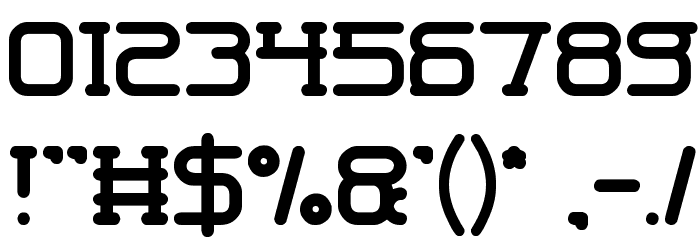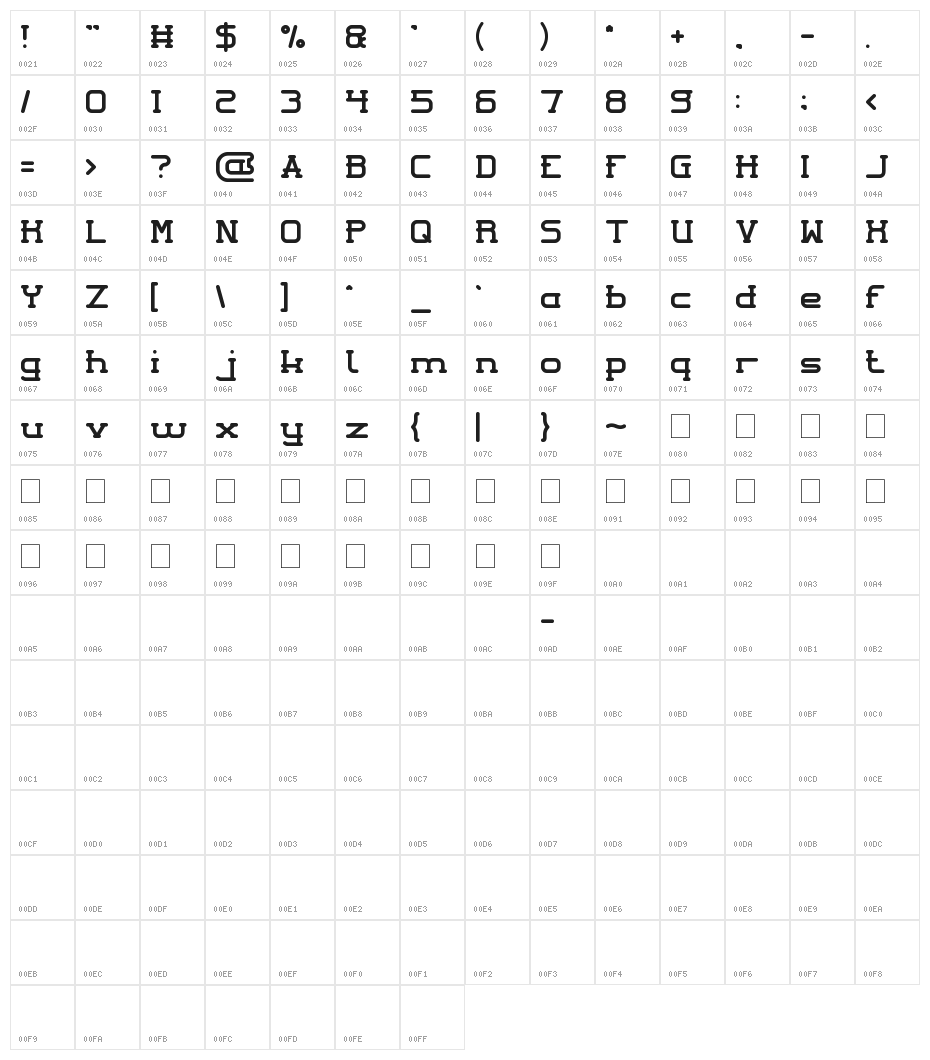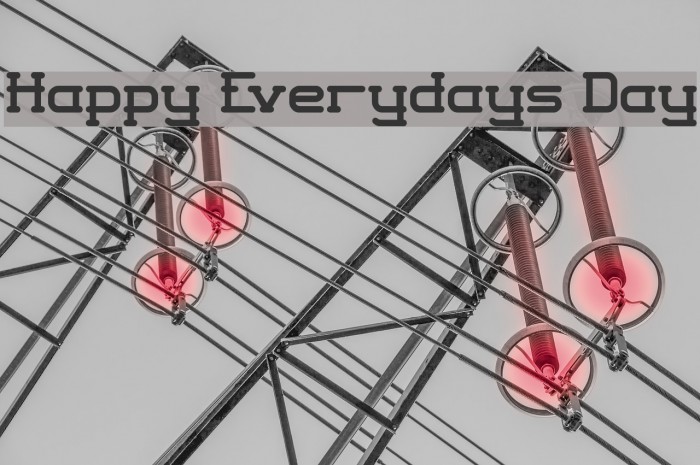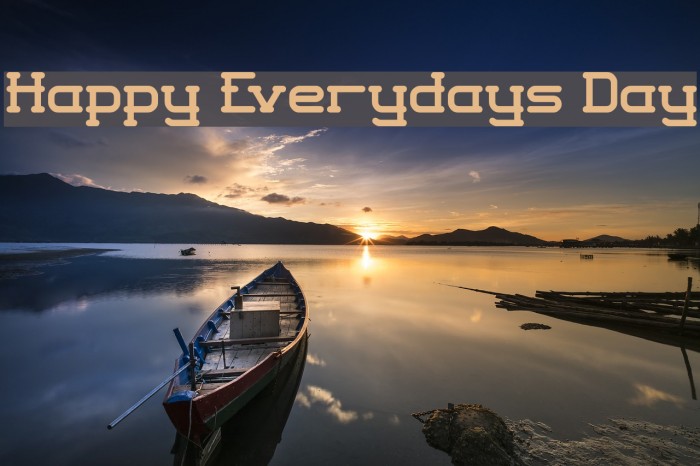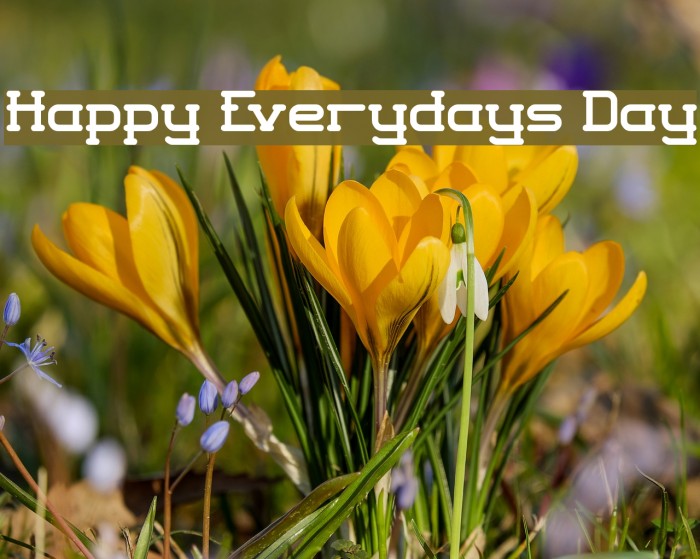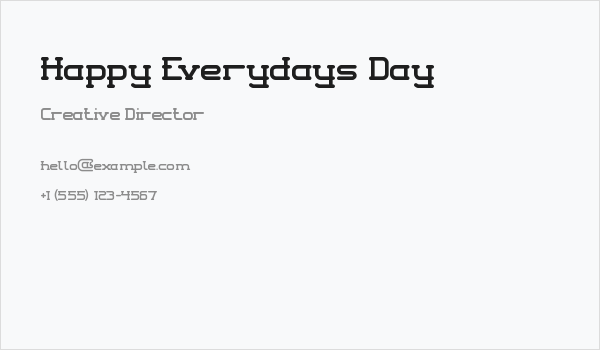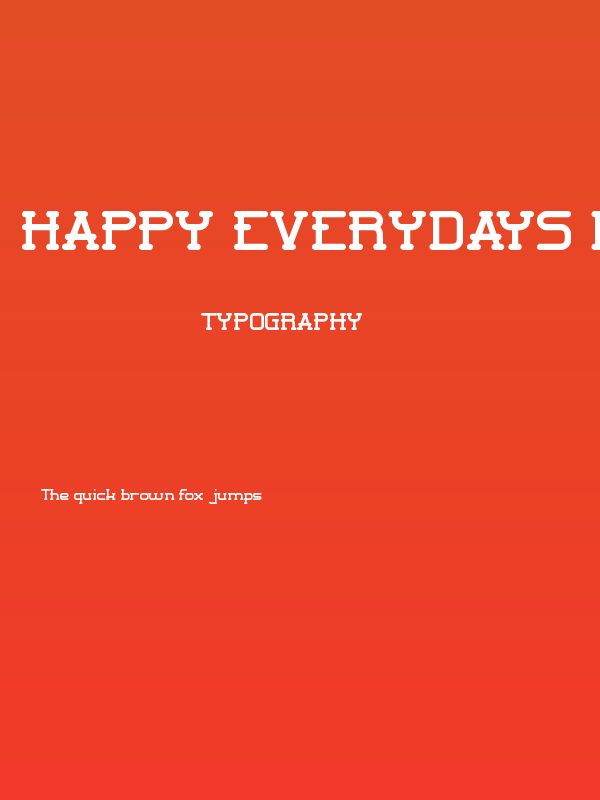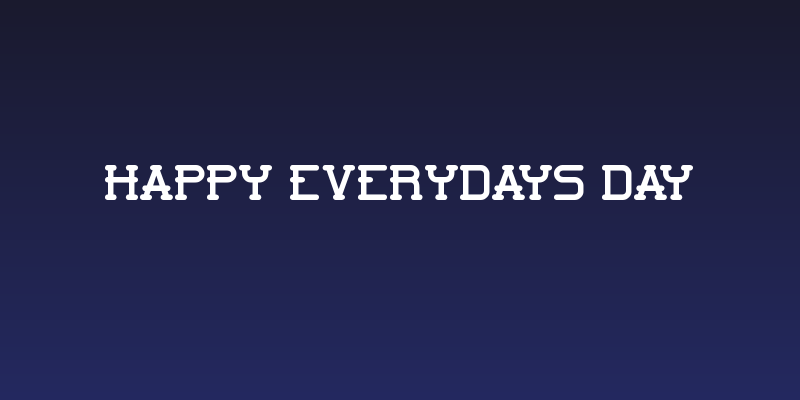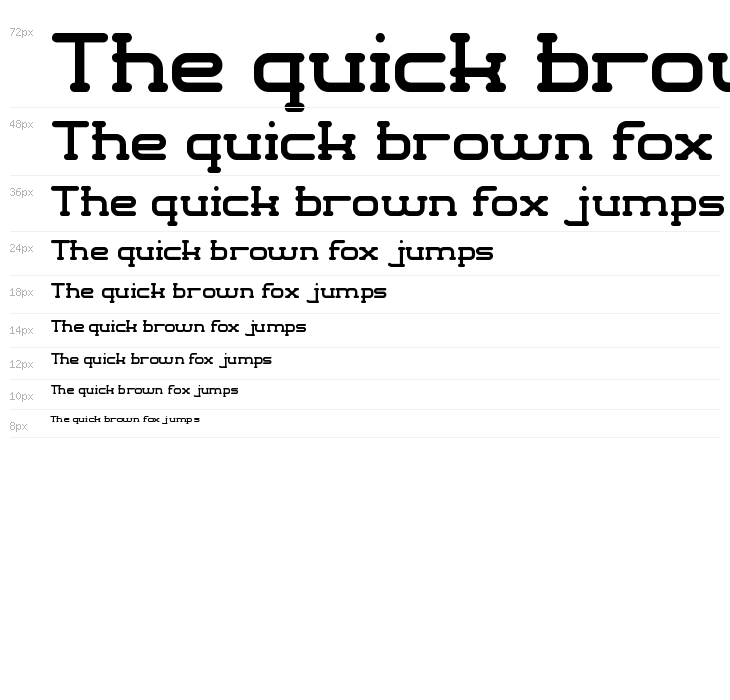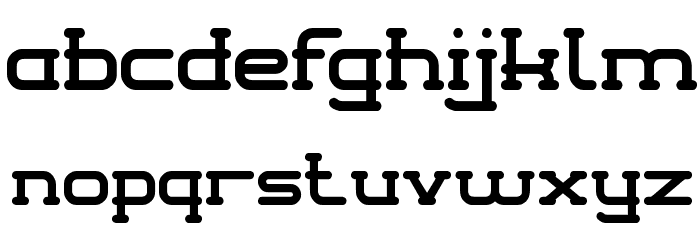
Happy Everydays Day Font
Happy Everydays Day Description
This font features a unique blend of modern and vintage styles, characterized by its rounded edges and geometric shapes. The uppercase letters are bold and structured, with a slight industrial feel, while the lowercase letters maintain a consistent flow with a touch of playfulness. The numerals are clear and legible, designed to stand out with their distinctive curves. Special characters are crafted with attention to detail, ensuring they complement the overall aesthetic. The font's design is versatile, making it suitable for a variety of creative projects.
| Overall Style | Modern, Vintage |
| Proposed Projects | Ideal for branding, posters, packaging, and digital media projects that require a bold and distinctive look. |